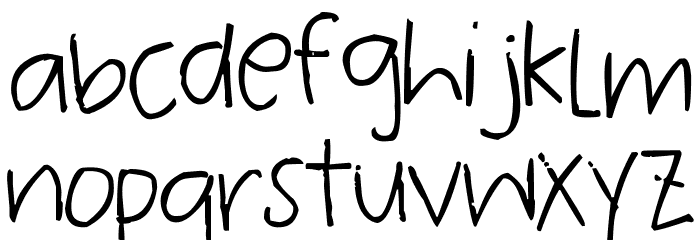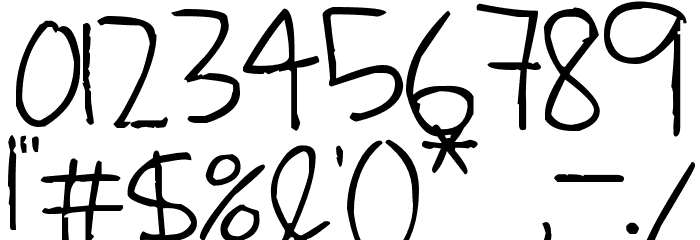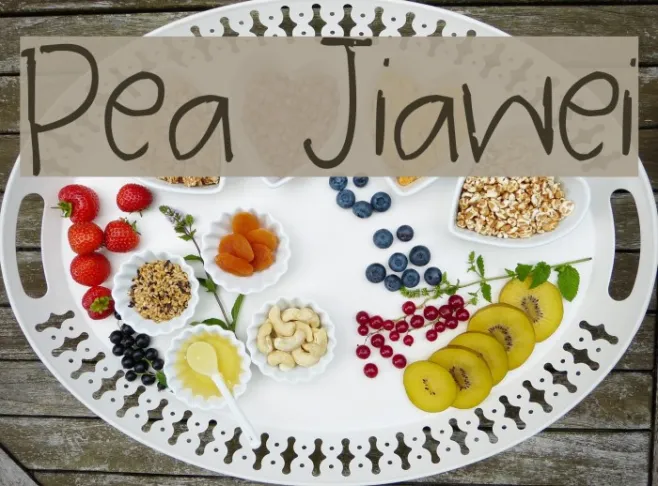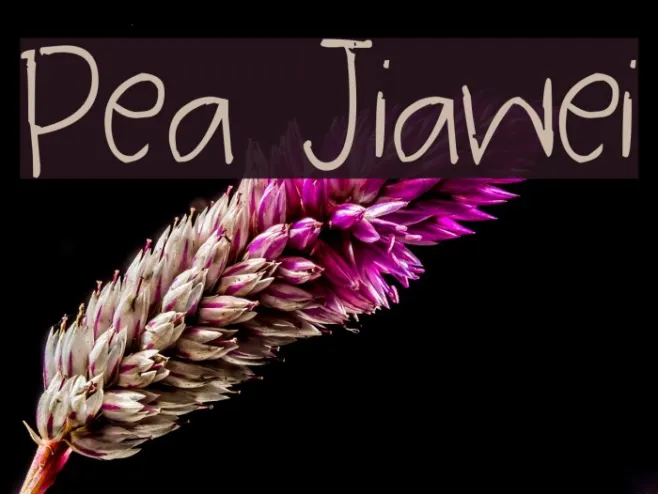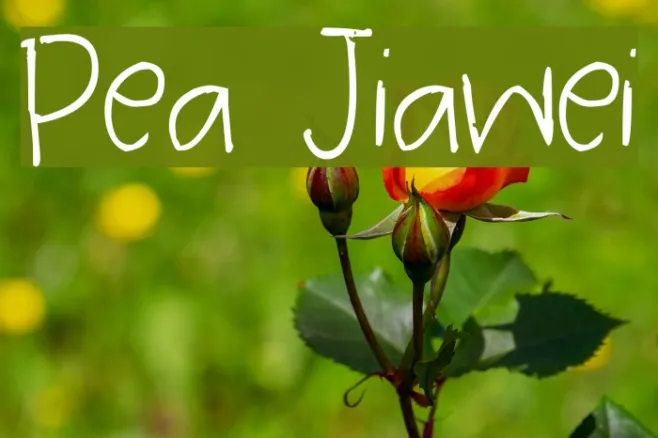
Pea Jiawei Font
This font features a playful and casual handwritten style, characterized by its irregular strokes and slightly uneven baseline. The letters are tall and narrow, giving it a unique, personal touch that mimics natural handwriting. The uppercase letters maintain a consistent height, while the lowercase letters vary slightly, adding to the informal aesthetic. The numerals and special characters follow the same handwritten style, ensuring a cohesive look across all characters. This font exudes a friendly and approachable vibe, making it ideal for projects that require a personal or informal touch.
A playful, casual handwritten font with irregular strokes and a personal touch.
- Proposed Projects: Ideal for greeting cards, personal blogs, casual invitations, and playful branding projects.
- Overall Style: Casual
- Use Case: Greeting cards, Personal blogs, Casual invitations